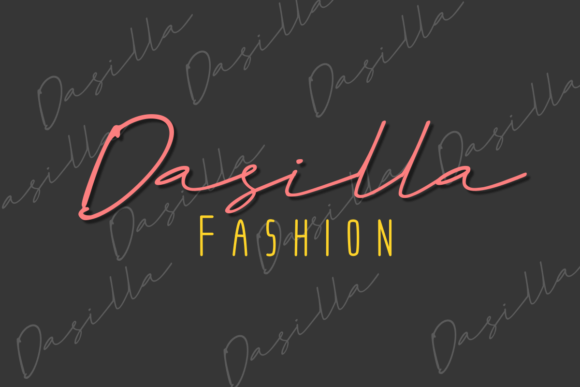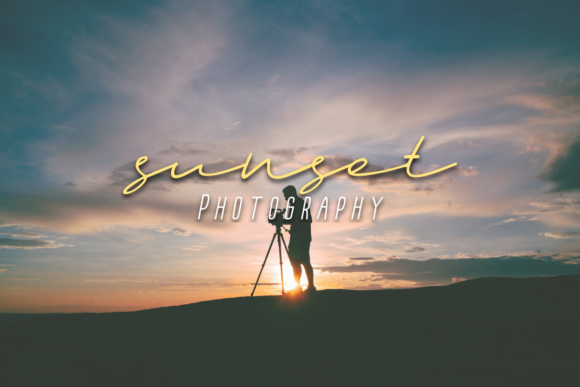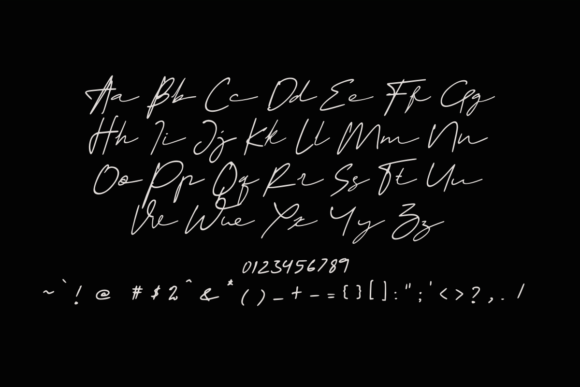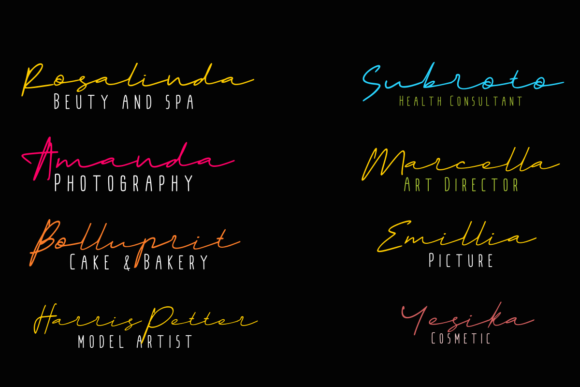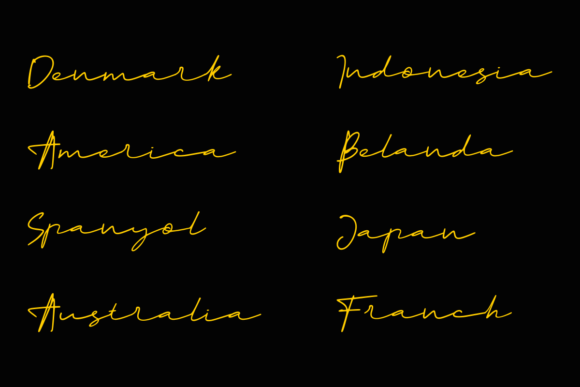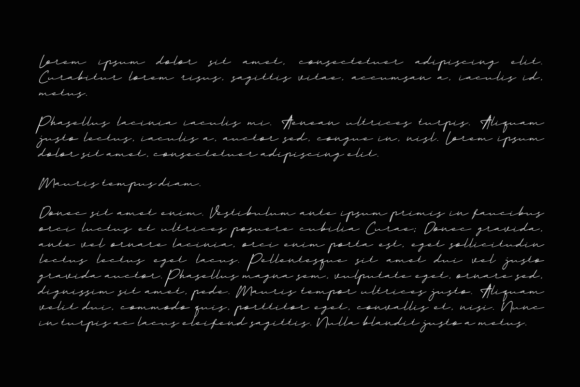
Introduction to Prettigel Font Font
Fonts play a crucial role in design, and the Prettigel Font font is a typeface that brings both character and versatility to any project. Whether you’re working on a branding project, a website, or a print design, the Prettigel Font font offers a unique style that can elevate your work.
| 👤 Author | Mozyen Studio |
Prettigel is a sweet and charming script with a cool twist.
Get inspired by its modern elegance .
Key Features of Prettigel Font Font
Why Choose Prettigel Font Font?
The Prettigel Font font is more than just a typeface – it’s a design tool that helps you communicate your message with style and clarity. Its unique character set and versatile design make it suitable for a wide range of applications, from elegant invitations to bold headlines.
With its carefully crafted letterforms and balanced proportions, the Prettigel Font font ensures readability and visual appeal across all mediums.
What makes Prettigel Font font special?
The Prettigel Font font stands out with its unique design, exceptional readability, and versatility across various design applications.